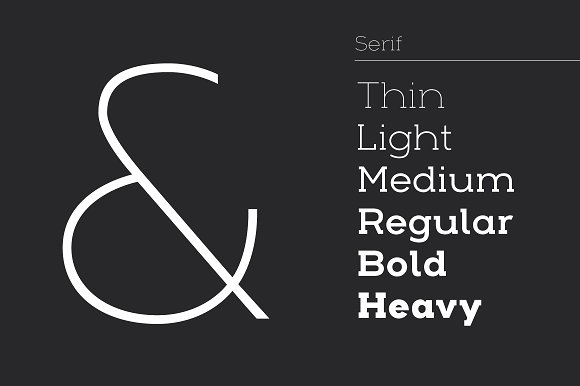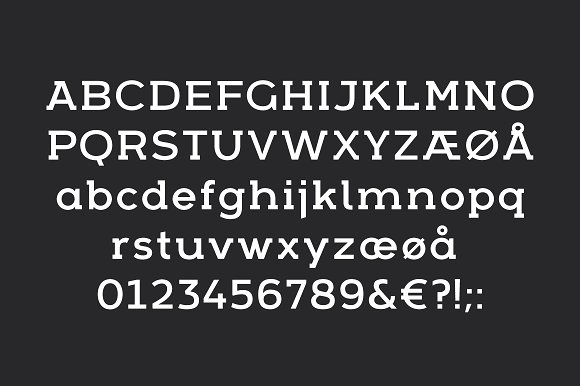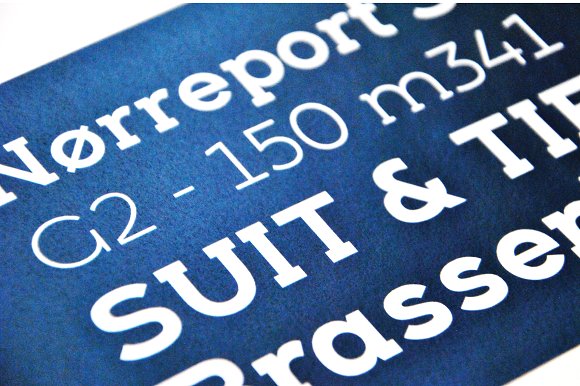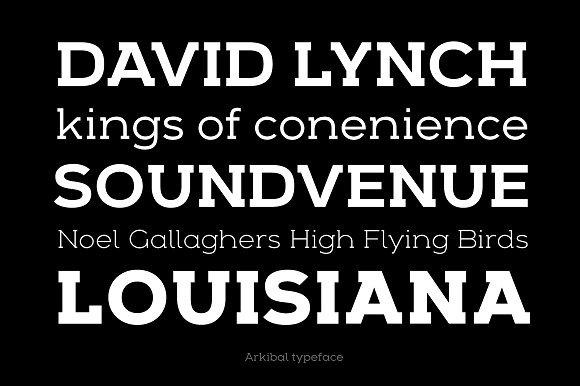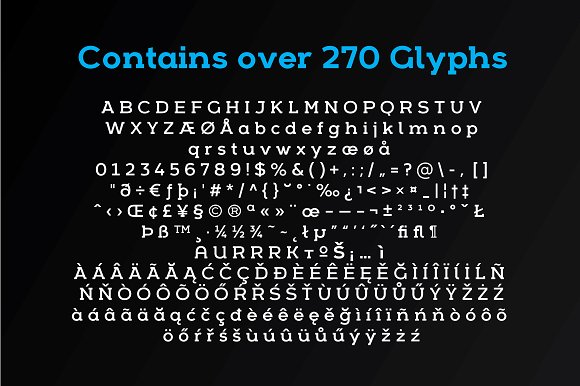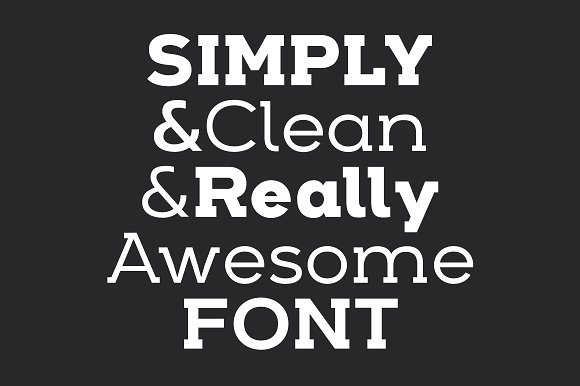
Uncovering Hidden Treasures: The Birth of the Arkibal Serif Font
As I delved into my family’s archives, I stumbled upon a treasure trove of old documents and store signs from my great-grandfather’s gold frame factory, dating back to 1838. The stories of his craftsmanship and the artists he collaborated with sparked a creative moment that would change the course of my design journey. I became fascinated with the idea of bringing these forgotten characters back to life, and the Arkibal Serif Font was born.
Designed to evoke the essence of the past, the Arkibal Serif Font is a reproduction of the old characters found in my great-grandfather’s documents. With the uppercase “G” serving as the starting point, this font is a tribute to his legacy and the traditional craftsmanship that defined his era. For designers, the Arkibal Serif Font offers a unique opportunity to add a touch of history and authenticity to their work.
Arkibal Serif Font Key Features
- Font Family: Arkibal Serif – a classic serif font with a touch of elegance and sophistication
- Unique Characteristics: Distinctive x-height and letter spacing create a harmonious and readable text, while the subtle flair on the serifs adds a touch of sophistication
Arkibal Serif Font Review
As a designer, I’ve had the chance to work with a wide range of fonts, and I must say that the Arkibal Serif Font is a great addition to any designer’s toolkit. ✨
- Classical elegance: The Arkibal Serif Font exudes a sense of sophistication and refinement, making it perfect for high-end branding and publishing projects.
- Wide range of weights: The font comes in a variety of weights, from light to bold, allowing for a high degree of customization and flexibility.
- Excellent readability: The font is designed to be highly legible, even at small font sizes, making it perfect for body text and other areas where readability is crucial.
- Limited language support: The font is currently only available in Latin-based languages, which may limit its usability for designers working with non-Latin scripts.
- No bold italic: While the font comes in a variety of weights, it does not include a bold italic style, which may be a drawback for some designers.
Overall, I think the Arkibal Serif Font is a solid choice for designers looking for a high-quality serif font. While it may have some limitations, its classical elegance and excellent readability make it a great addition to any designer’s toolkit.